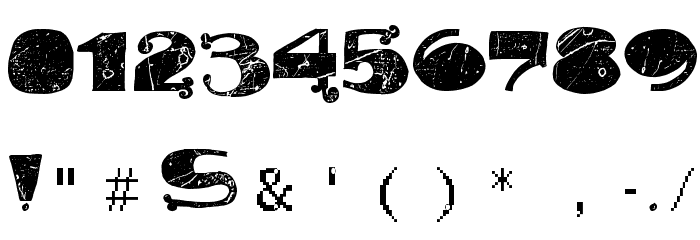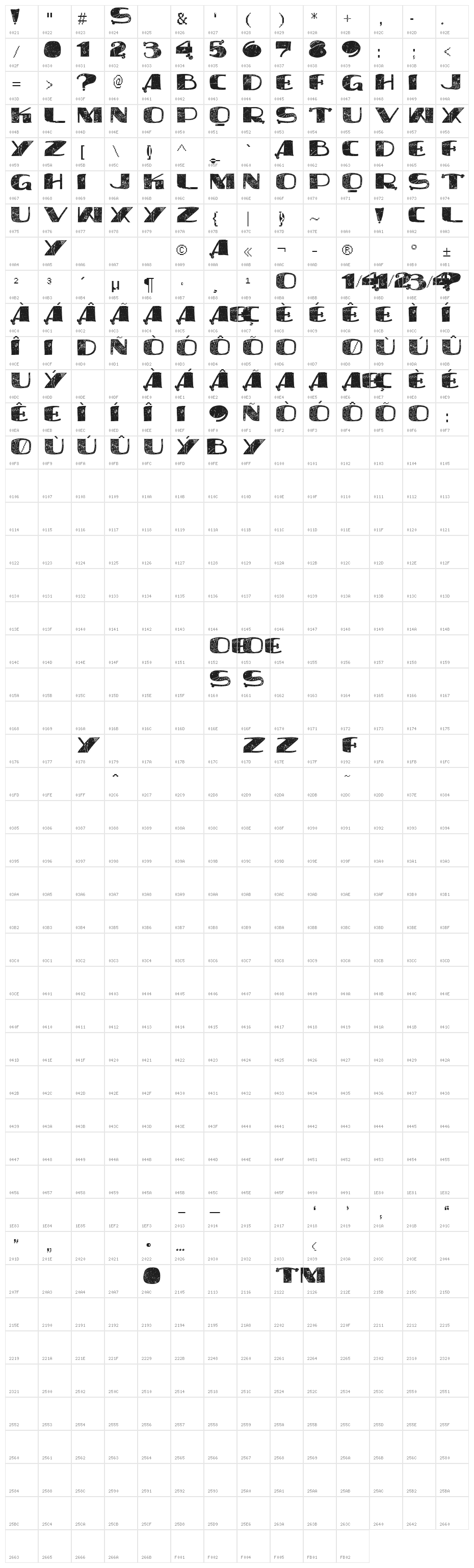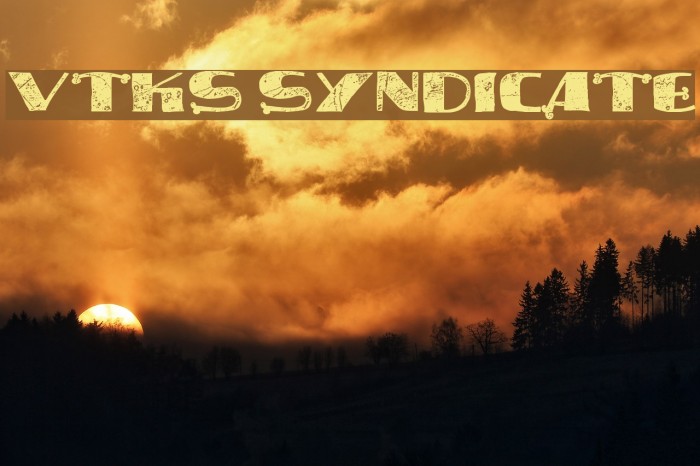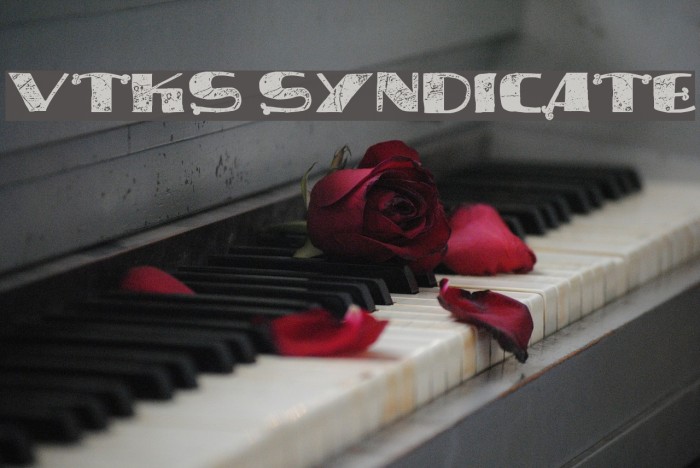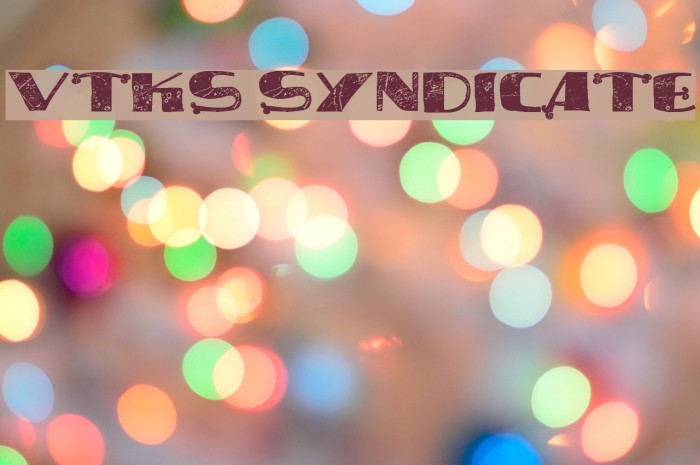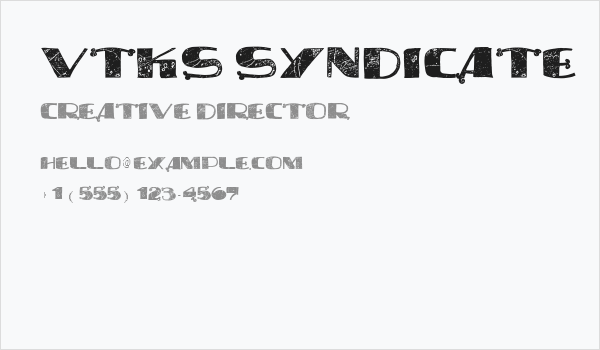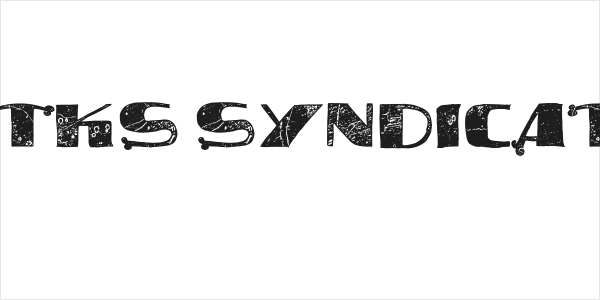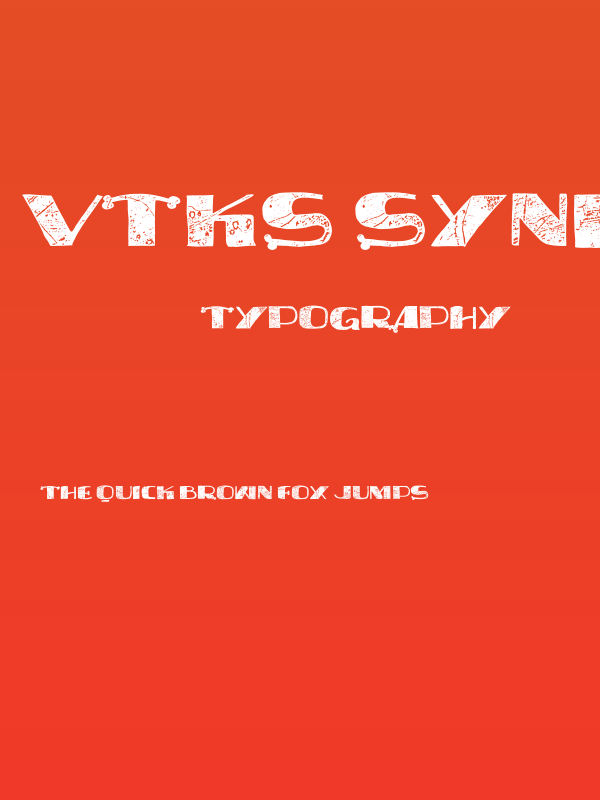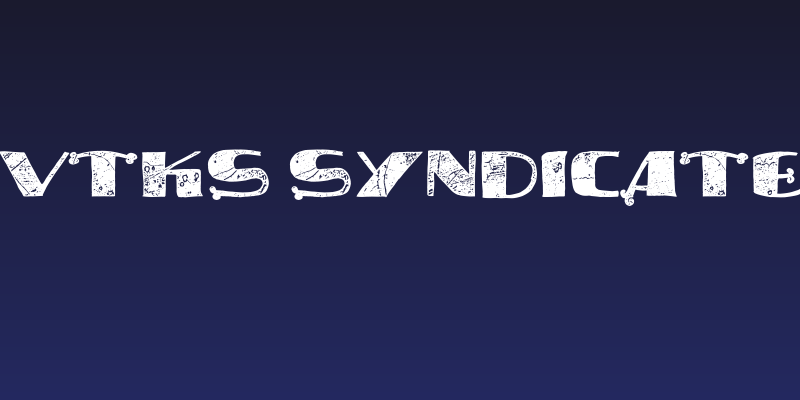
vtks syndicate Font
vtks syndicate Description
This font features a bold and distressed style, characterized by its rough, textured appearance that gives it a vintage and grunge aesthetic. The uppercase letters are prominent and eye-catching, with irregular edges and a worn-out look that adds character and depth. The numerals and special characters follow the same design, maintaining consistency throughout. This font is ideal for projects that require a rugged, edgy feel, such as posters, album covers, or themed event invitations. Its unique style makes it stand out, capturing attention with its bold and artistic flair.
| Overall Style | Vintage, Grunge |
| Proposed Projects | Ideal for posters, album covers, themed event invitations, and any project needing a rugged, edgy feel. |